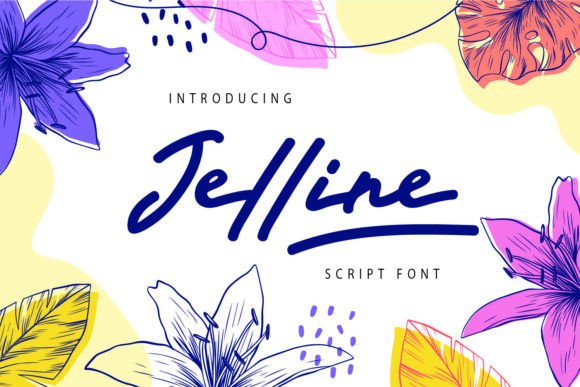
Journey into the world of Jelline Font, a captivating script font that will ignite your creativity and transform your designs. Created by the talented Vunira, this font is a masterpiece of digital artistry, meticulously crafted to bring a touch of elegance and playfulness to your projects.
Jelline Font stands out with its charming handwritten style, striking a perfect balance between delicate strokes and bold accents. Its versatile nature makes it suitable for a wide range of applications, from eye-catching logos and branding designs to personalized invitations and heartfelt messages.
With Jelline Font, you'll discover a font that breathes life into your words, adding a personal touch that resonates with your audience. Its carefully crafted curves and flourishes add a touch of whimsy and sophistication, making your designs truly unforgettable.
Immerse yourself in the beauty of Jelline Font and let your creativity soar. Whether you're a seasoned designer or just starting your journey into the world of typography, this font will elevate your projects to new heights.